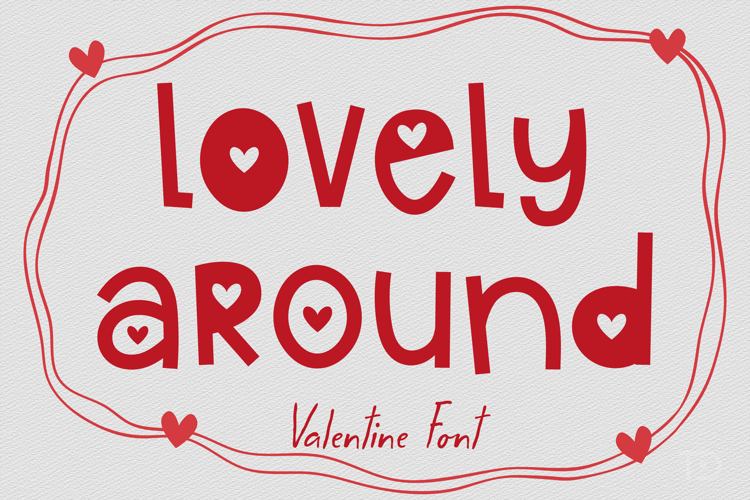
Lovely Around, cute Valentine display font
Lovely Around is a whimsical, heart-infused decorative typeface that radiates affection and joy.
Featuring playful letterforms where counters are replaced by charming heart shapes, this font is a celebration of love in all its forms. The Lovely Around font boasts a bouncy baseline and varying stroke widths, giving it a handcrafted, “doodle” quality that feels both intimate and professional. It’s a typeface that doesn’t just convey a message; it sends a hug.
Perfect for the holiday season, the Lovely Around typeface is a must-have for Valentine’s Day cards, engagement announcements, and wedding stationery. It works exceptionally well in nursery decor or children’s book titles, where its soft edges and “lovey-dovey” details can truly shine.
Enhance the Lovely Around font by using vibrant reds or soft pastels to bring out its romantic character. It pairs wonderfully with simple mono-line scripts or clean light-weight sans-serifs to keep the focus on its unique heart-shaped details.
From personalized gifts to boutique bakery branding, this font adds a sprinkle of sweetness to any project.